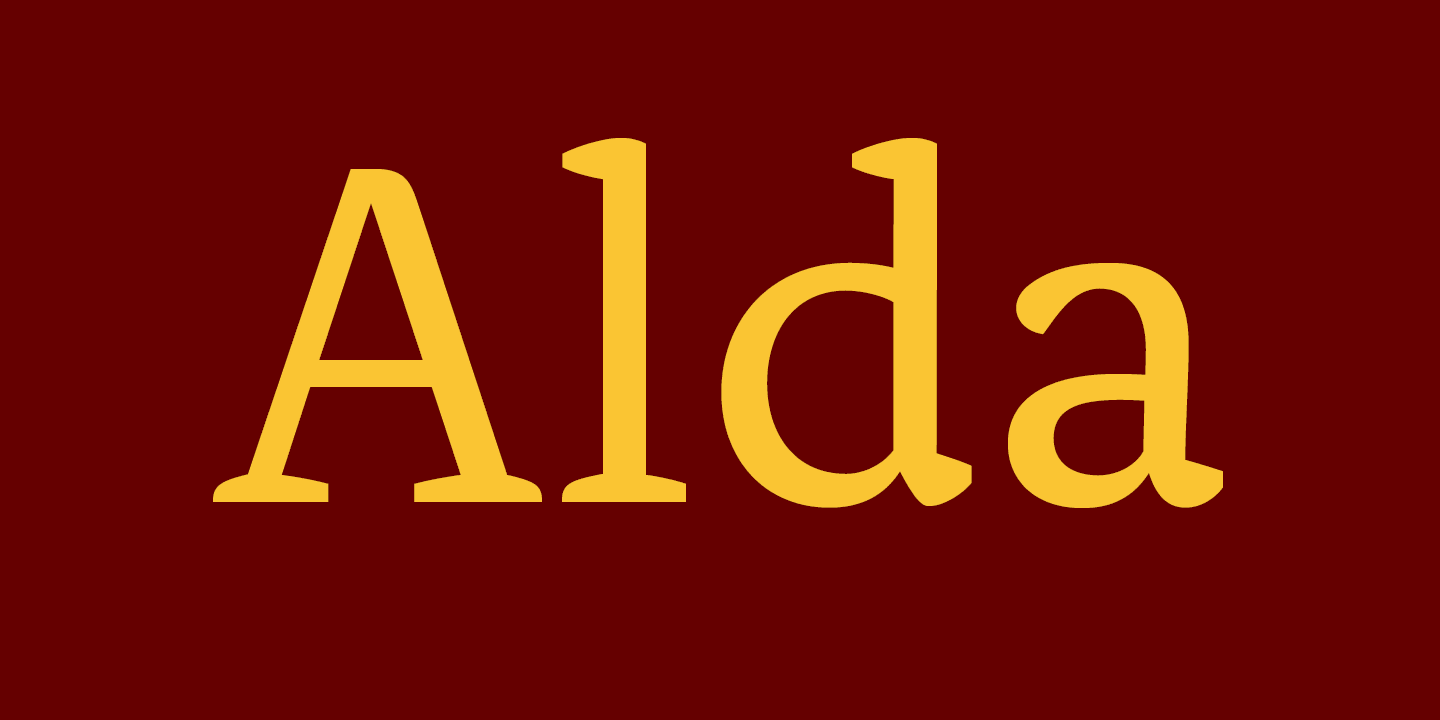
This Font Name is Alda (font by Emigre)
It’s not Alda. Here is some of the text in Alda. Note that the question mark is not the same as the sample.
I also checked the Brioni font, but it doesn’t seem to be it.